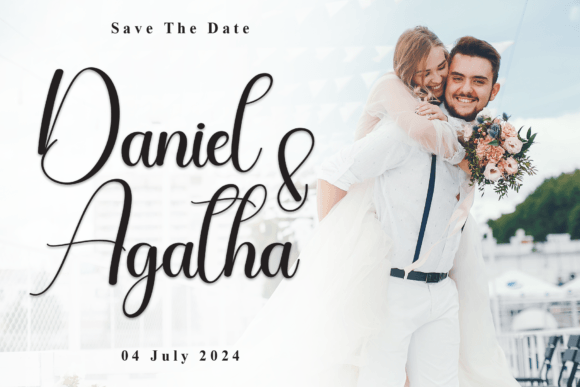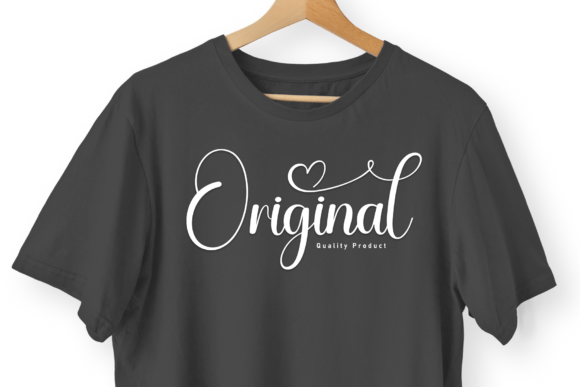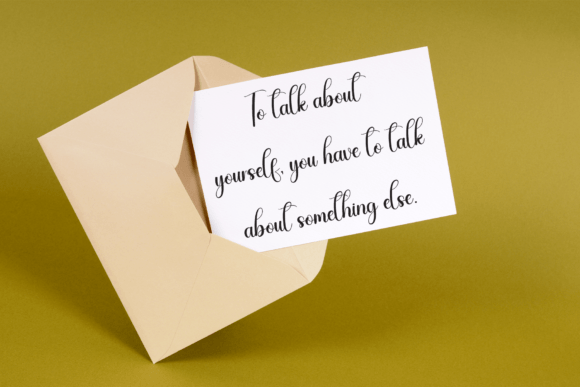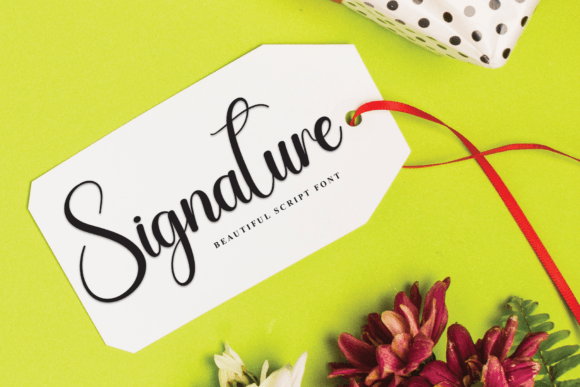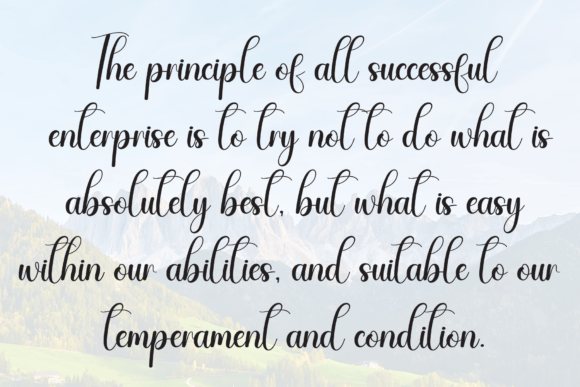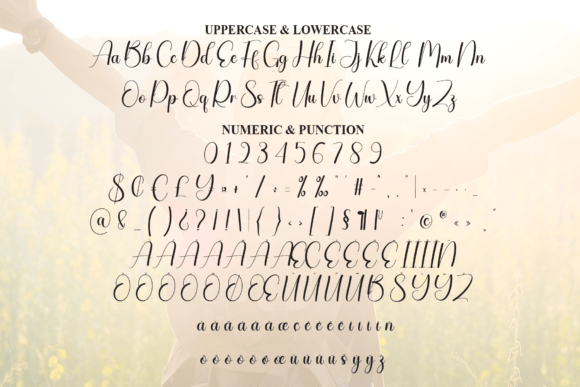
Introducing Happyday Font: The Perfect Choice for Adding a Personal Touch
Are you looking for a font that can add a warm and inviting touch to your text? Look no further than Happyday Font! This charming handwritten font is designed to bring a cheerful and playful style to your message, making it perfect for designers and crafters who want to add a personal touch to their work.
The Characteristics of Happyday Font
Happyday Font is a smooth, flowing script that is sure to capture the attention of your audience. Its handwritten style gives your text a friendly and approachable feel, making it perfect for a wide range of design projects. Whether you’re creating a logo, a greeting card, or a social media post, Happyday Font is the perfect choice for adding a personal touch.
The font’s smooth, flowing letters are designed to give your text a sense of movement and energy. This makes it perfect for creating eye-catching headlines, titles, and captions that will grab the attention of your audience. At the same time, the font’s playful style ensures that your text will be easy to read and understand, making it perfect for body text and other longer forms of content.
Why Choose Happyday Font?
So why choose Happyday Font over other fonts on the market? Here are just a few reasons why designers and crafters love this charming handwritten font:
- Personal touch: Happyday Font adds a personal touch to your text, making it feel warm and inviting. This is perfect for creating a connection with your audience and making your message feel more relatable.
- Playful style: The font’s playful style is sure to capture the attention of your audience and add a touch of whimsy to your design.
- Easy to read: Despite its playful style, Happyday Font is easy to read and understand, making it perfect for body text and other longer forms of content.
- Versatile: Happyday Font is versatile and can be used for a wide range of design projects, from logos and greeting cards to social media posts and more.
How to Use Happyday Font
Using Happyday Font is easy! Here are a few tips for getting the most out of this charming handwritten font:
- Pair with other fonts: Happyday Font pairs well with other fonts, so don’t be afraid to experiment with different combinations. Try pairing it with a bold font for a striking contrast, or with a more elegant script for a sophisticated look.
- Use for headlines and titles: Happyday Font is perfect for creating eye-catching headlines and titles. Its smooth, flowing letters are sure to capture the attention of your audience and add a touch of whimsy to your design.
- Add a personal touch: Happyday Font is all about adding a personal touch to your text. Don’t be afraid to experiment with different colors, textures, and other design elements to make your text feel more relatable and engaging.
In conclusion, Happyday Font is a charming handwritten font that is perfect for adding a personal touch to your text. Its smooth, flowing letters give your text a warm and inviting feel, making it perfect for a wide range of design projects. Whether you’re a designer, crafter, or simply someone who loves to create, Happyday Font is the perfect choice for adding a touch of whimsy and personality to your work. So why wait? Download Happyday Font today and start creating your own unique and engaging designs!
- What is Happyday Font? Happyday Font is a charming handwritten font with a cheerful, playful style.
- What is Happyday Font used for? Happyday Font can be used for a wide range of design projects, including logos, greeting cards, social media posts, and more.
- Is Happyday Font easy to read? Yes, Happyday Font is easy to read and understand, making it perfect for body text and other longer forms of content.